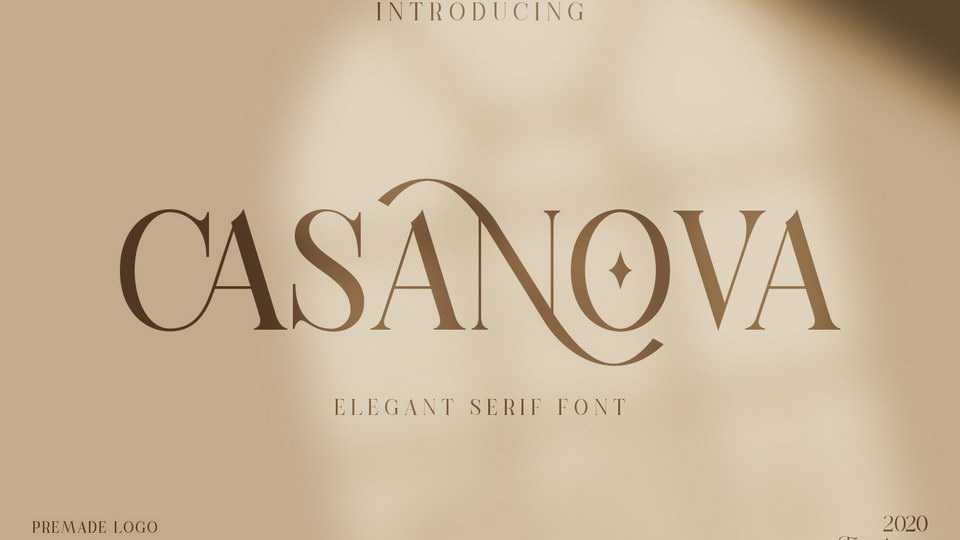
Download Casanova Serif font, a modern style serif display typeface with alternatives and ligatures to create stunning logos, quotes, posts, blog posts. branding projects, magazine imagery, wedding invitations and more.
Designer: Typetemp Studio